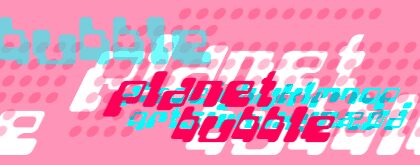
Planet Bubble
Planet Bubble is a bold, expanded display font that exudes a distinct techno-inspired aesthetic. With its angular, bubble-like letterforms, this font commands attention and evokes a futuristic, high-tech ambiance. The expanded width and strong geometric shapes give the typeface a striking presence, making it well-suited for attention-grabbing headlines, product branding, and digital interfaces.
The font's unique design lends itself to a range of applications, from sci-fi-inspired posters to cutting-edge app interfaces, allowing designers to create visually compelling and memorable typographic compositions.